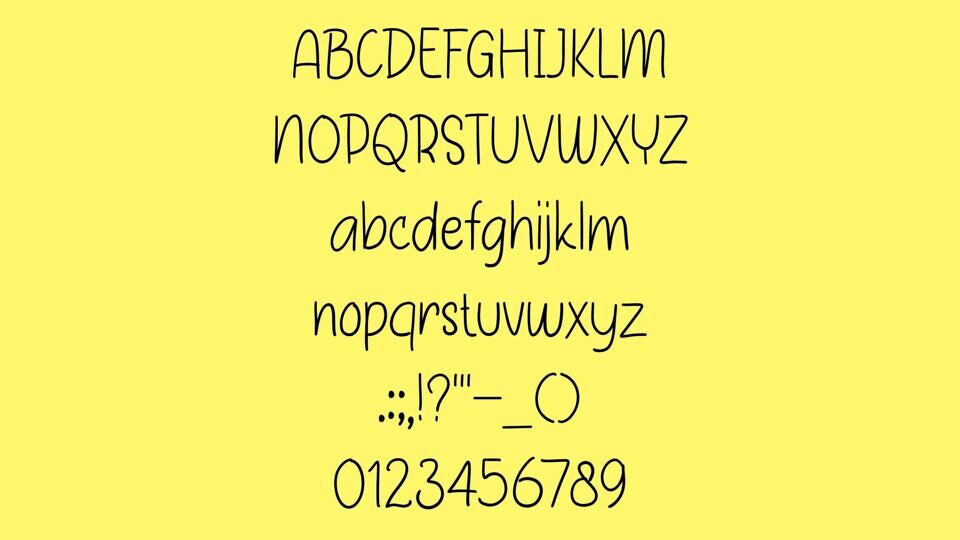
Midnight Cartoon is a free playful handwriting font crafted by Studio Hello Good. It features 131 glyphs across 194 characters, making it ideal for kids’ projects, comics, and creative designs.